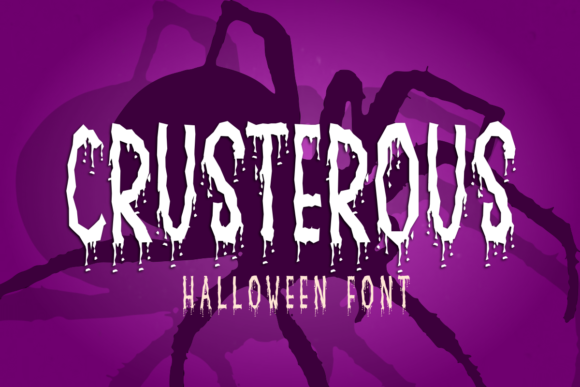
Prepare to fall under the spell of Crusterous Font, a bewitching display font that will cast a haunting charm over your Halloween-themed designs. This chunky lettered font is not just a font; it's a portal to a realm of spooktacular creativity, inviting you to unleash your inner ghoul and conjure up spine-chilling designs that will send shivers down your spine.
Embrace the eerie elegance of Crusterous Font, and let your imagination run wild as you craft spellbinding invitations, hair-raising posters, and bone-chilling social media graphics. This font is your magic wand, transforming ordinary words into haunting whispers and casting an otherworldly aura on all your Halloween endeavors.
With Crusterous Font at your fingertips, you'll have the power to conjure up designs that are as unique and captivating as a haunted house's creaky floorboards. From the moment you first lay eyes on this font, you'll feel its mystical energy flowing through your veins, inspiring you to create designs that will make your audience scream with delight.
So, heed the call of Crusterous Font and embark on a typographic journey that will leave you spellbound. Let this font be your guide as you navigate the dark and twisted corridors of your imagination, creating designs that will haunt your audience long after Halloween has passed.